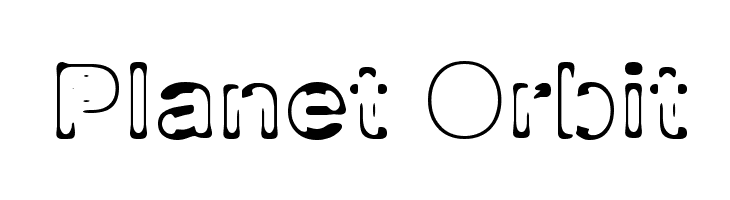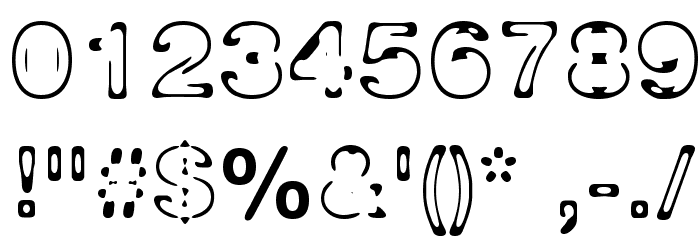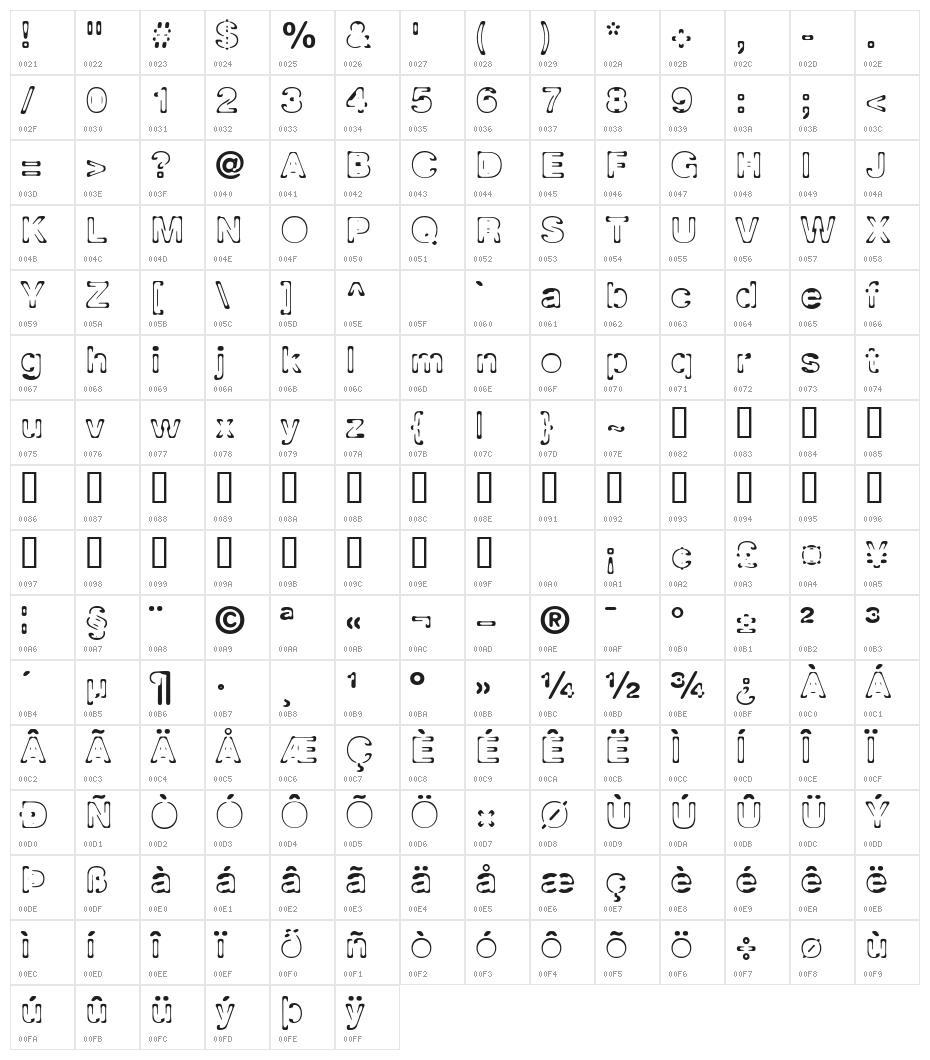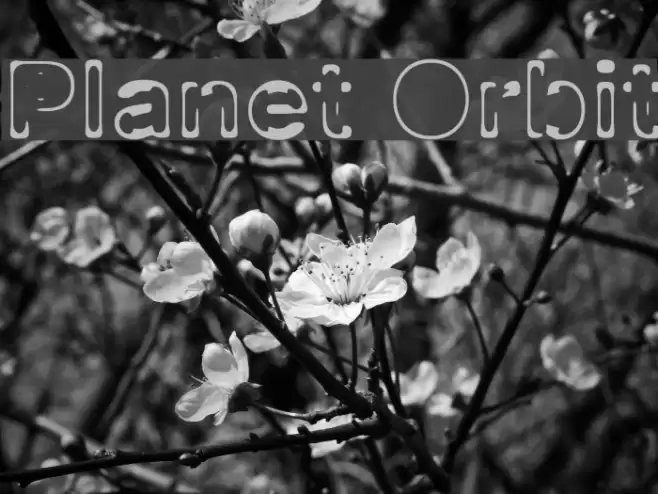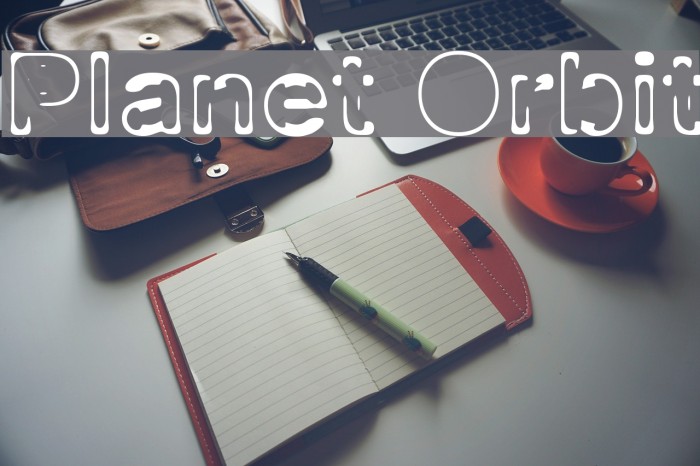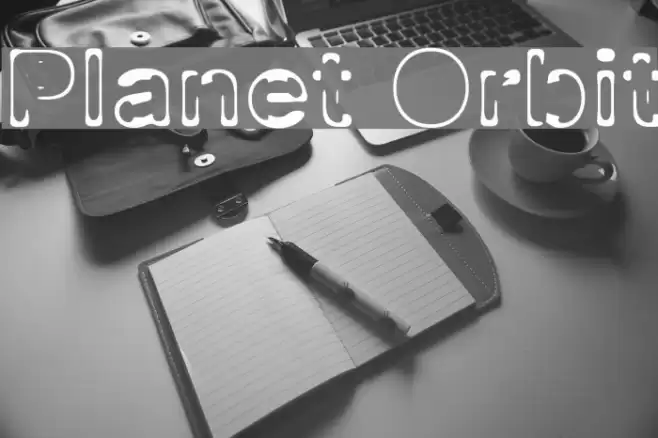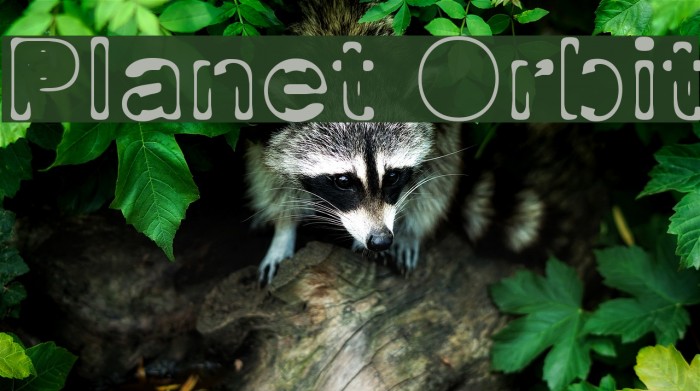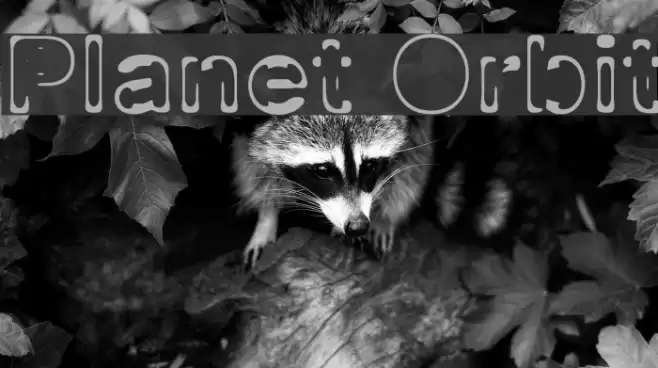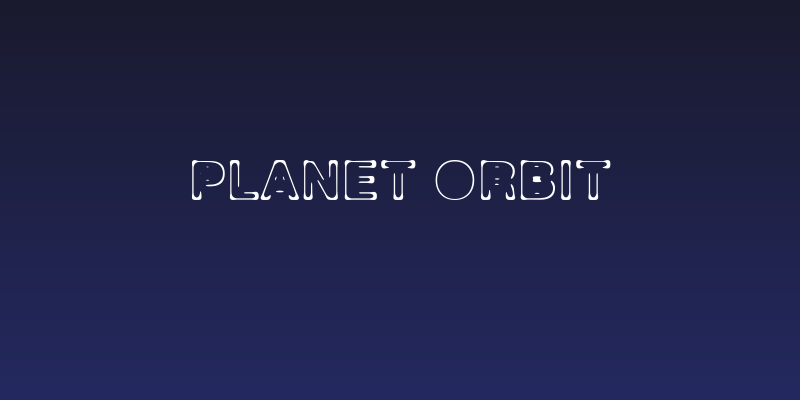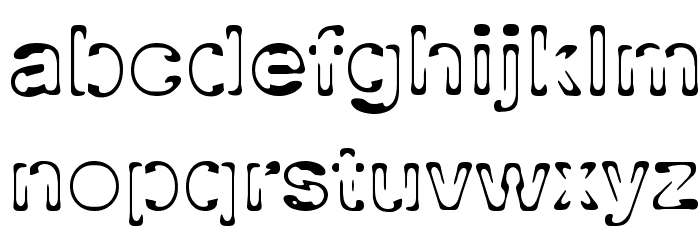
Planet Orbit Font
Planet Orbit Description
This font features a unique, futuristic design with a stencil-like appearance. Each character is crafted with a combination of solid and hollow sections, creating a dynamic and eye-catching effect. The uppercase and lowercase letters maintain a consistent style, with rounded edges and geometric shapes. Numbers and special characters follow the same design principles, ensuring a cohesive look across all glyphs. The font's playful yet structured aesthetic makes it suitable for creative projects that require a modern and innovative touch.
| Proposed Projects | Ideal for sci-fi themed designs, tech branding, video game titles, and modern posters. |